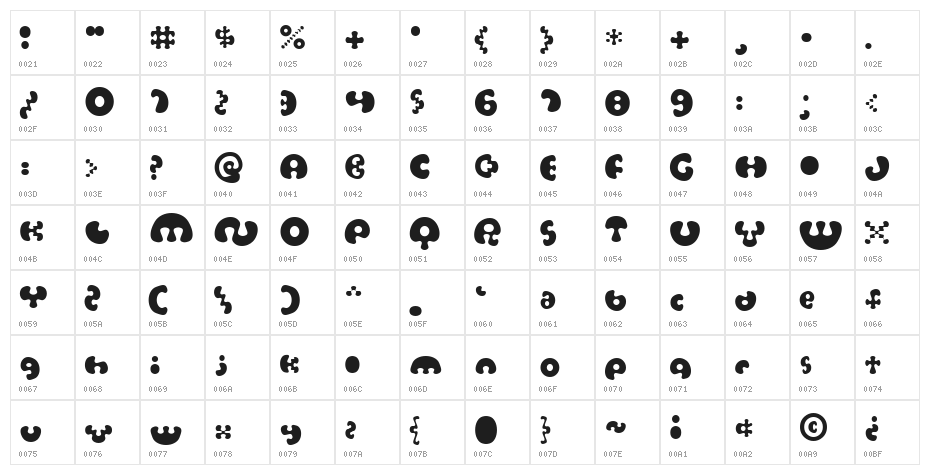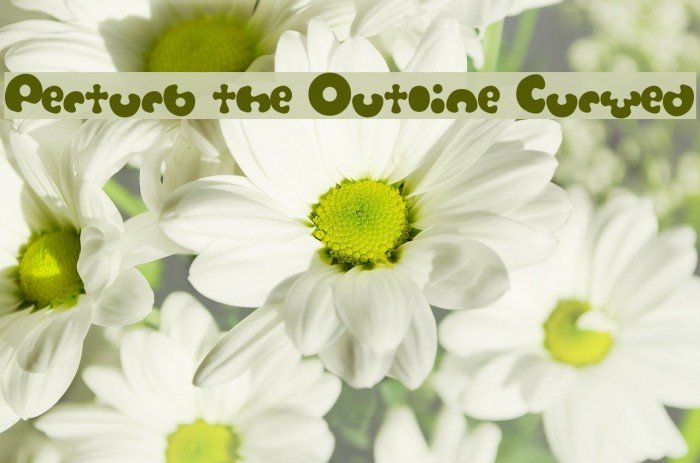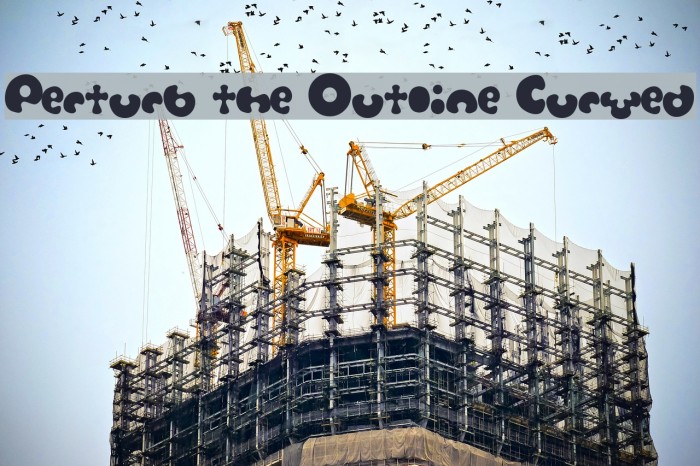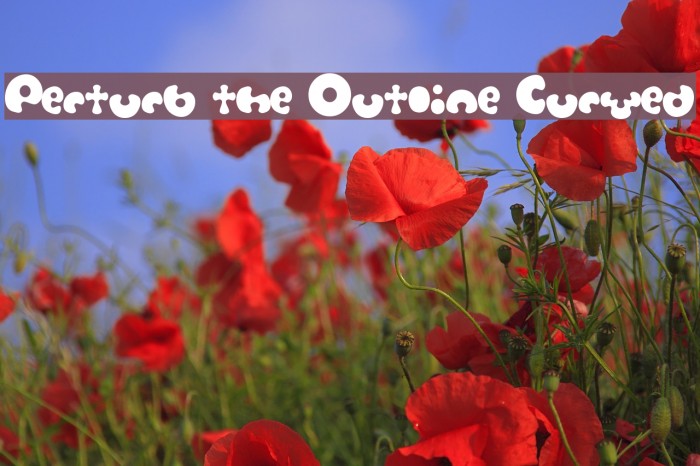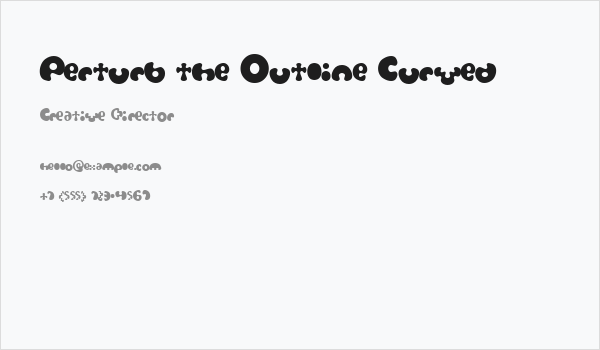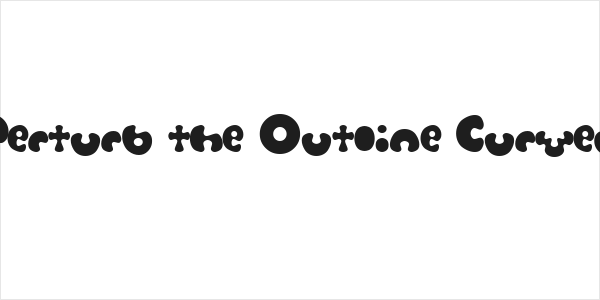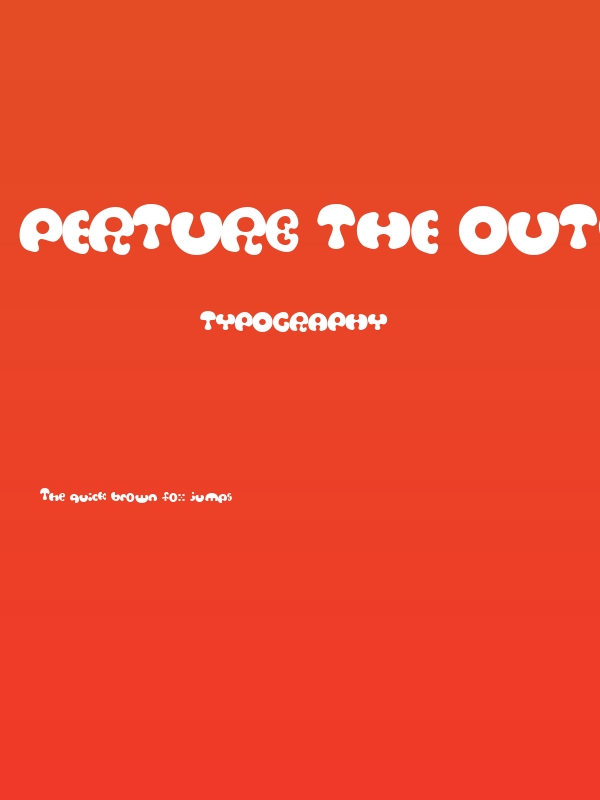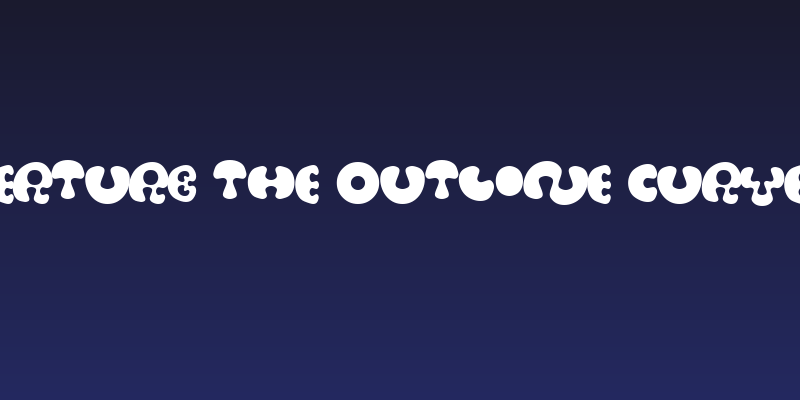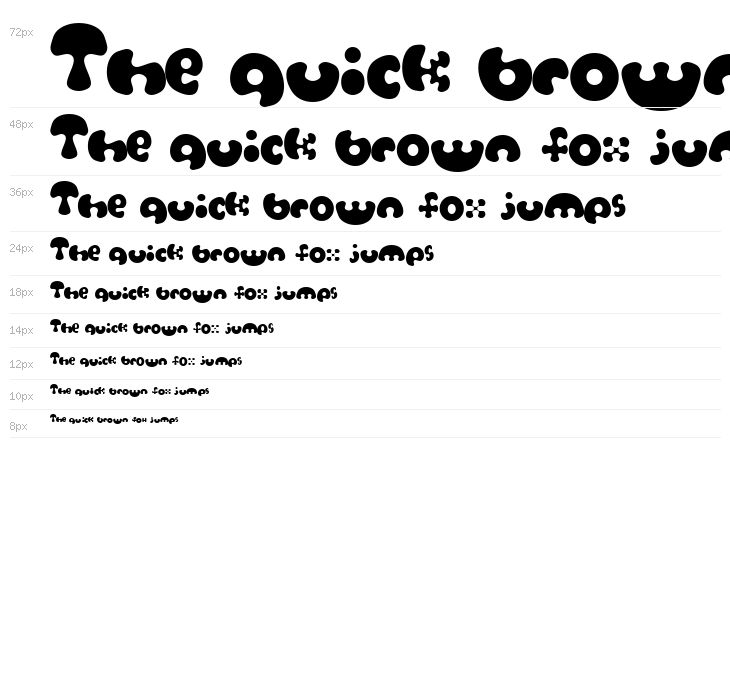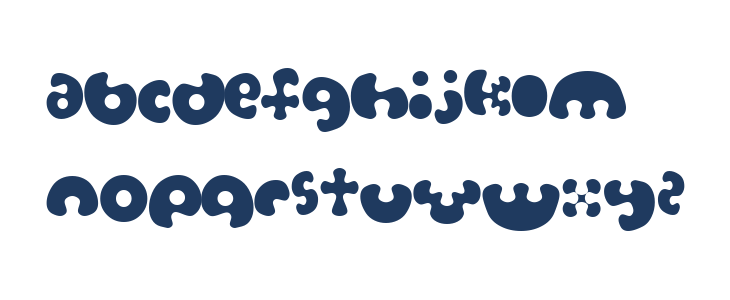
Perturb the Outline Curved Font
Perturb the Outline Curved Description
This font features a bold and playful design with highly rounded and exaggerated curves. The characters are thick and substantial, creating a strong visual impact. The unique aspect of this font is its whimsical and almost cartoon-like appearance, with each letterform exhibiting a bubbly and inflated style. The font maintains a consistent weight throughout, with no significant variation in stroke thickness, giving it a cohesive look. The spacing between characters is relatively tight, enhancing the compact and dense feel of the text. This font is ideal for projects that require a fun and eye-catching aesthetic, such as children's books, playful branding, or creative posters.
| Proposed Projects | Children's books, playful branding, creative posters, party invitations. |